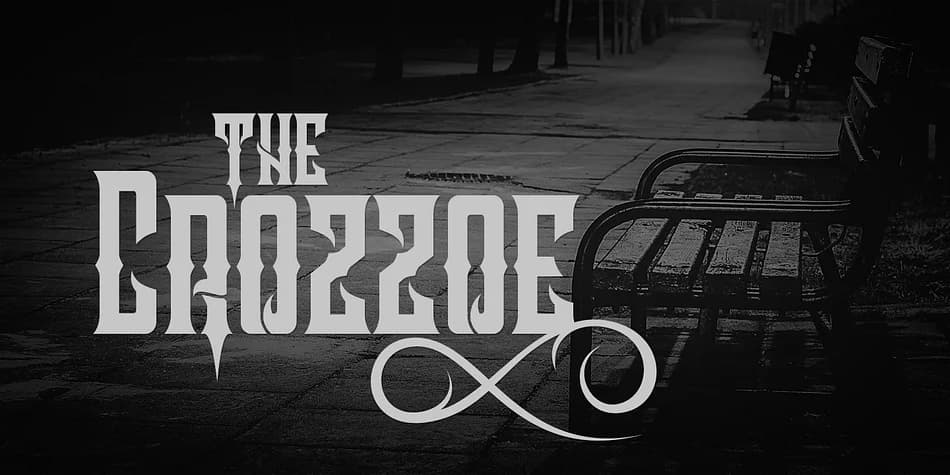
Crozzoe brings the weight of history and theatrical gothic drama to any typographic statement. Designed by Tama Putra, this blackletter typeface distills Victorian ornament into letterforms that feel both intricate and commanding. It's built for projects where bold historical references matter: wedding invitation suites with elaborate frames, vintage book jacket typography, dark fantasy game cover designs, and ornamental apothecary label work. Anywhere elaborate letterforms strengthen the narrative, Crozzoe delivers.
The typeface comes loaded with creative control and options. Seven stylistic alternates let you adjust the mood and character across different sections, sharpening the intensity for headers while softening it for pull quotes or secondary design elements. You also get discretionary ligatures, a complete uppercase and lowercase character set, multilingual support, and currency symbols, making this a working tool for complex international design briefs. Numerals and punctuation carry the same ornate precision as the display letters, so every typographic element reads as intentional and cohesive throughout the design.
Pair Crozzoe with a light, clean sans-serif for body text to keep layouts readable and let the blackletter dominate where it truly belongs. The contrast sharpens your hierarchy and keeps the focus on the ornate work. Available on Creative Fabrica, Crozzoe brings both historical authenticity and practical versatility to your next project.
- Ornate, Gothic
- Logos, Certificates
- medieval themes, band merch, and tattoo lettering
- a clean sans-serif for body text
Crozzoe Font is a blackletter font that shines as a display or heading face. Pair it with a clean serif or sans-serif font for body text β the contrast creates a clear hierarchy while the two styles stay balanced and easy to read.
Crozzoe Font
by Tama Putra